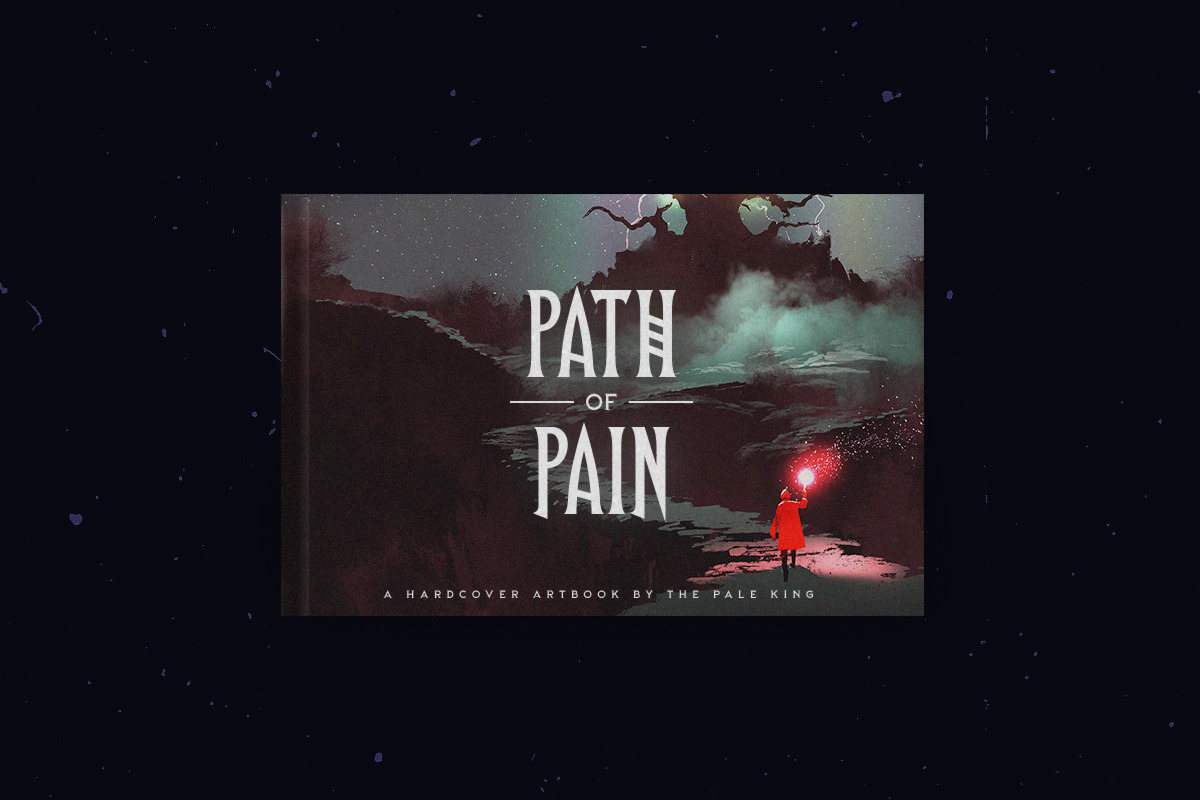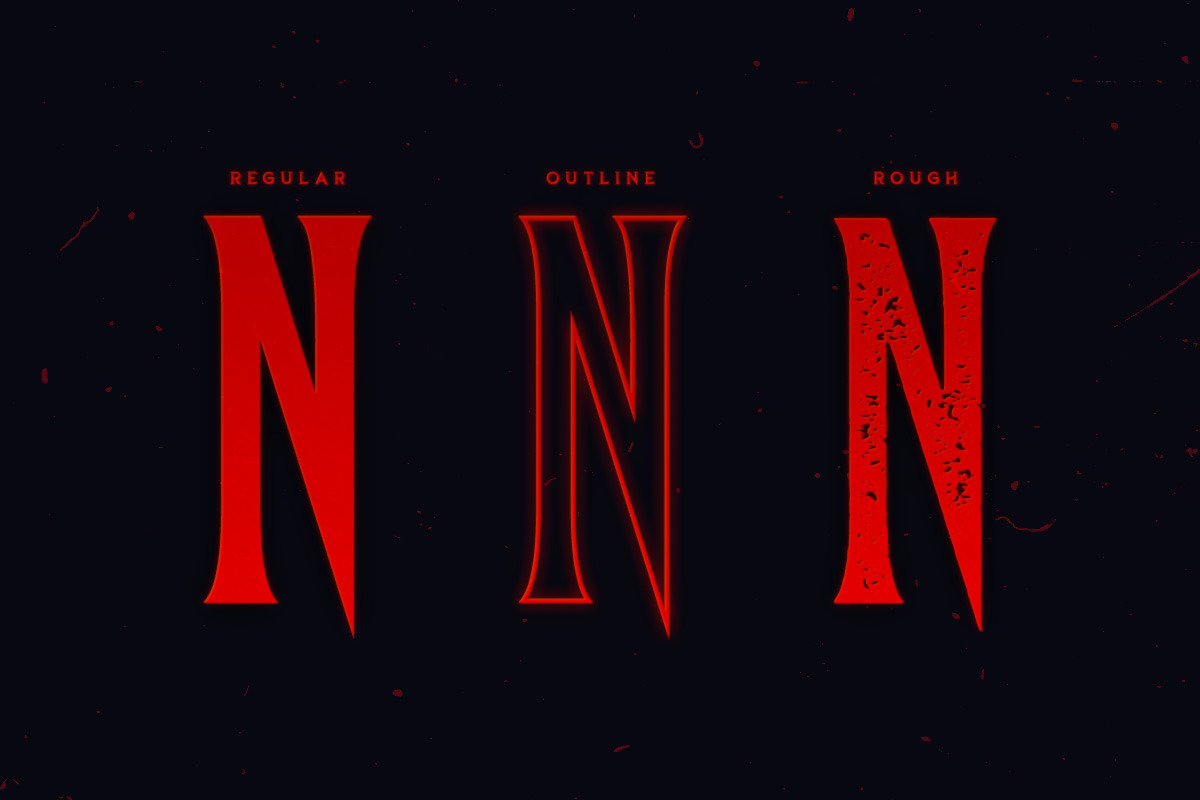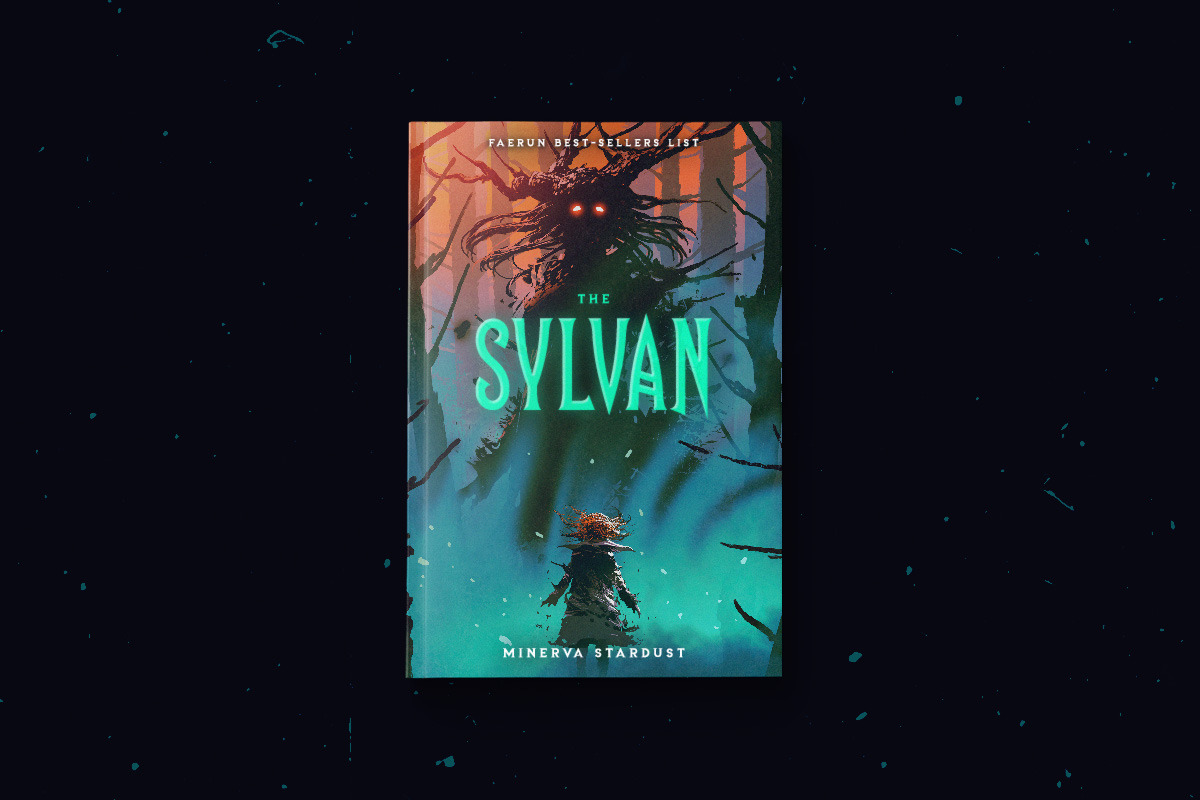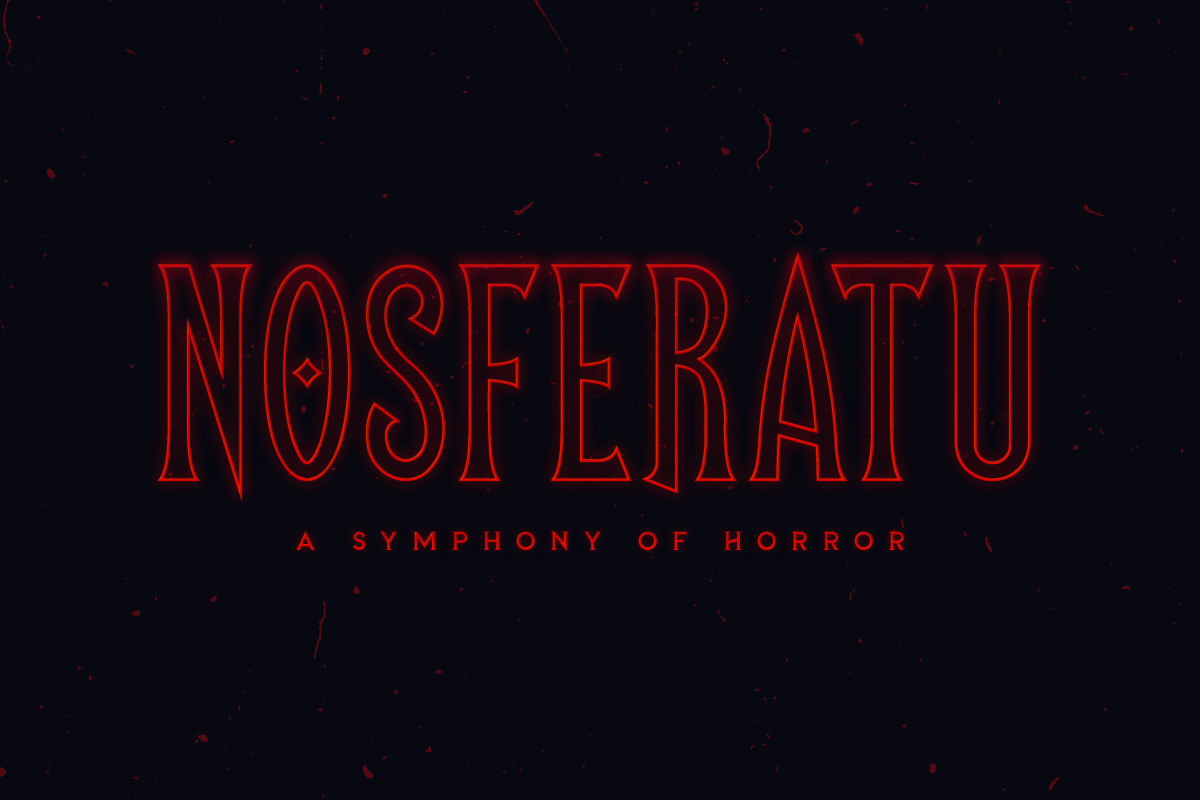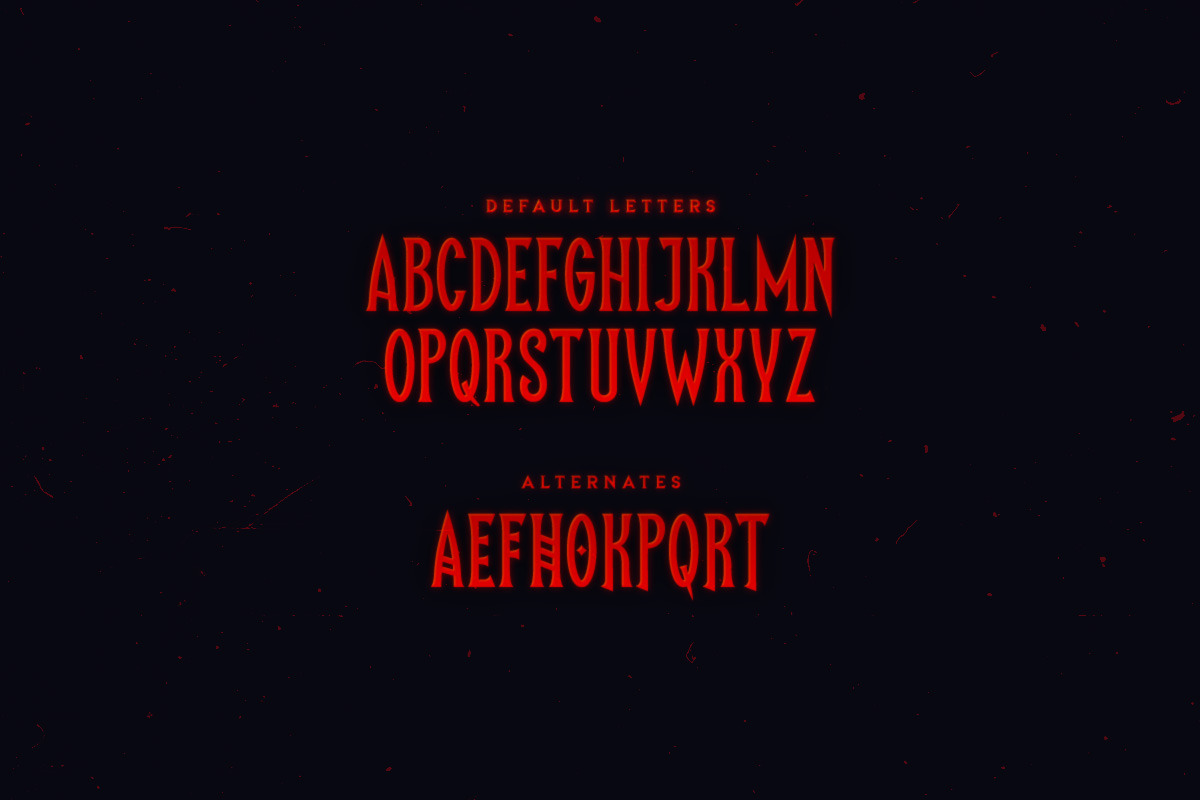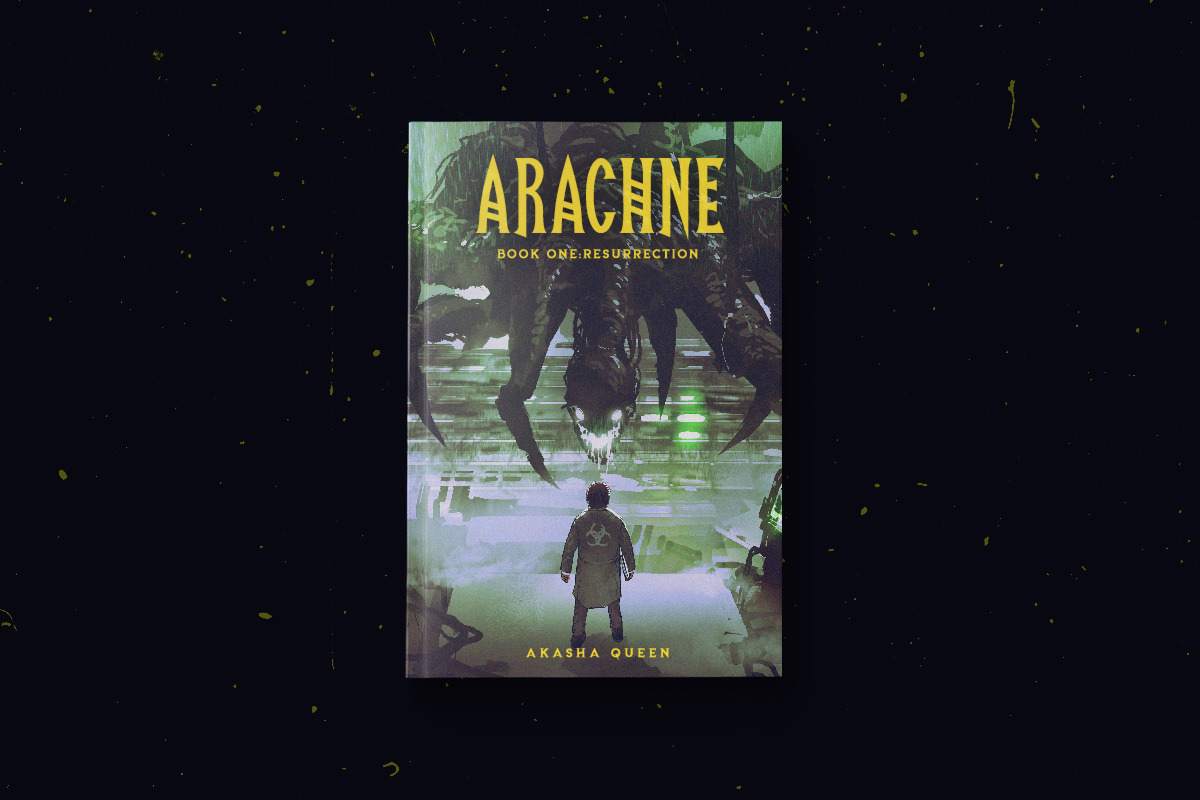
Anima Typeface
Anima is a tall and sharp font family with three distinct styles. It includes uppercase multilingual letters, alternate letters, numbers and punctuation.
- It includes uppercase multilingual letters, alternate letters, numbers and punctuation.
- Anima Regular
- Anima Outline
- Anima Rough
Why Anima Typeface is worth a look
Anima Typeface by Tugcu Design Co. fits naturally into Branding, posters, packaging, typography.